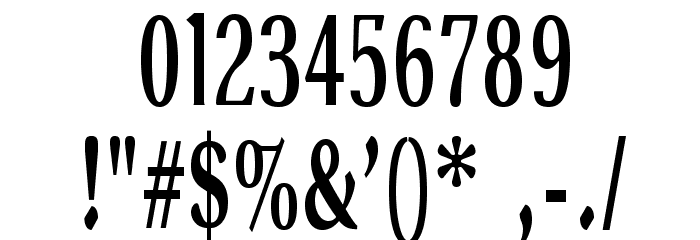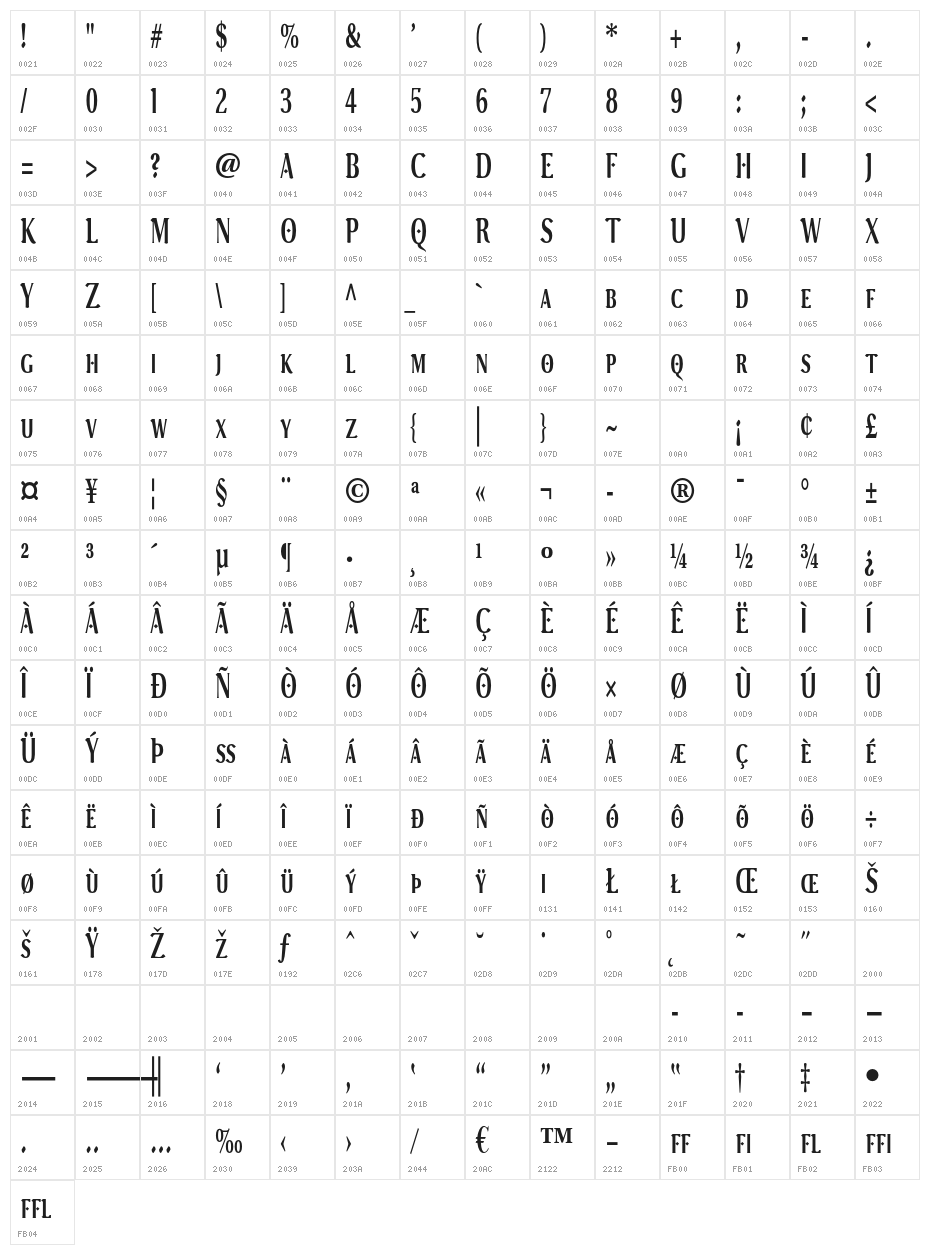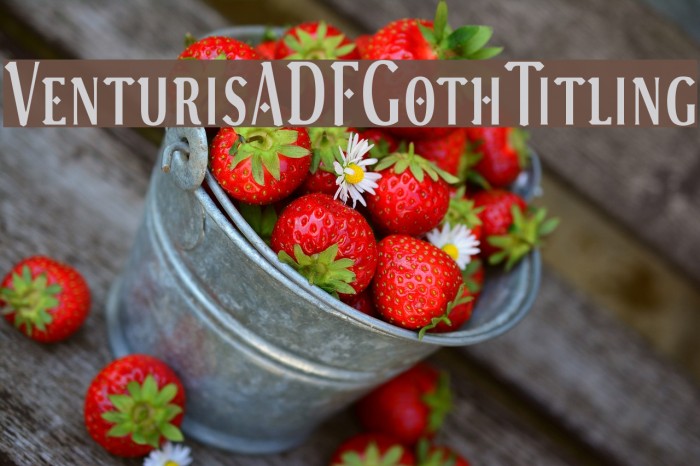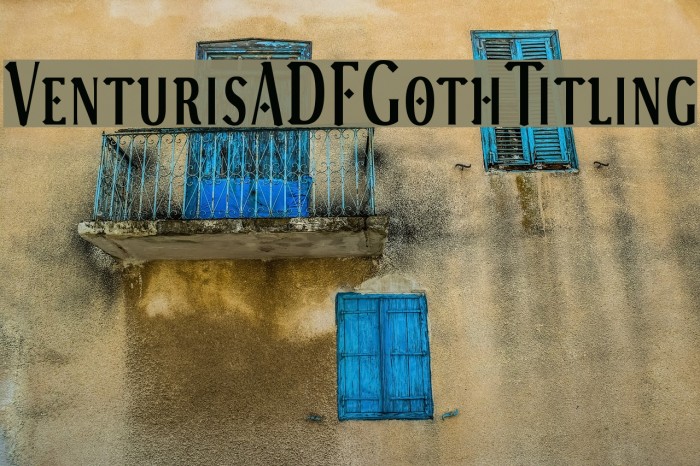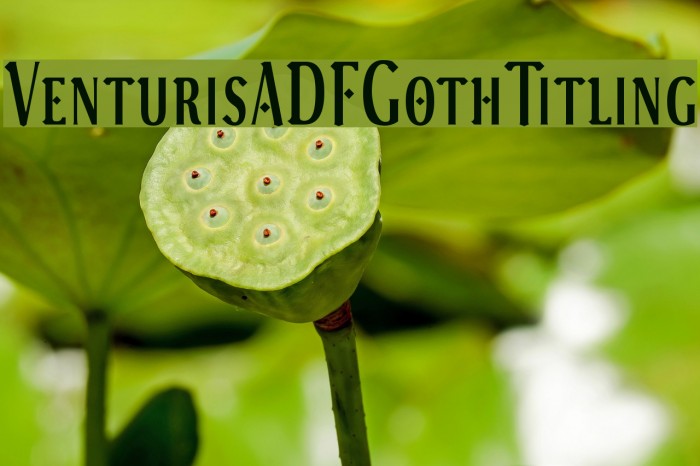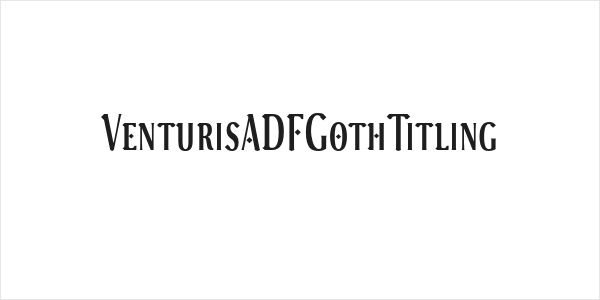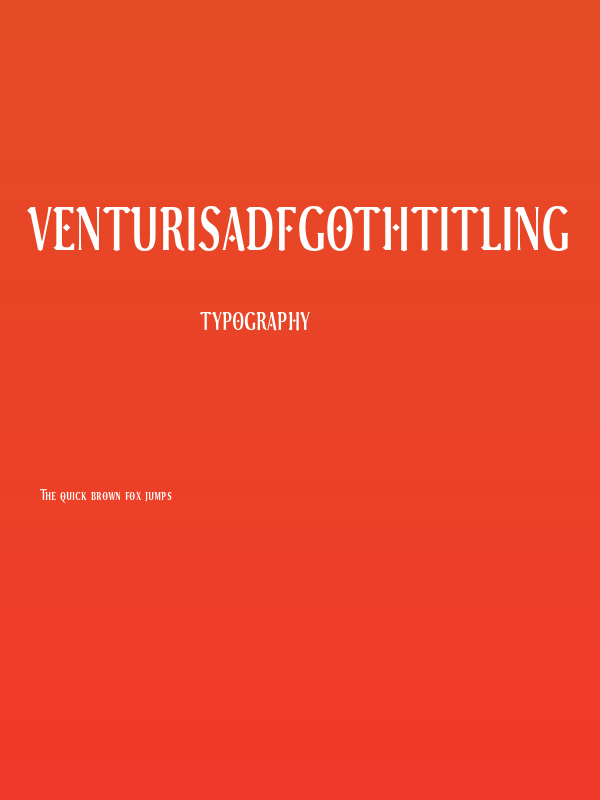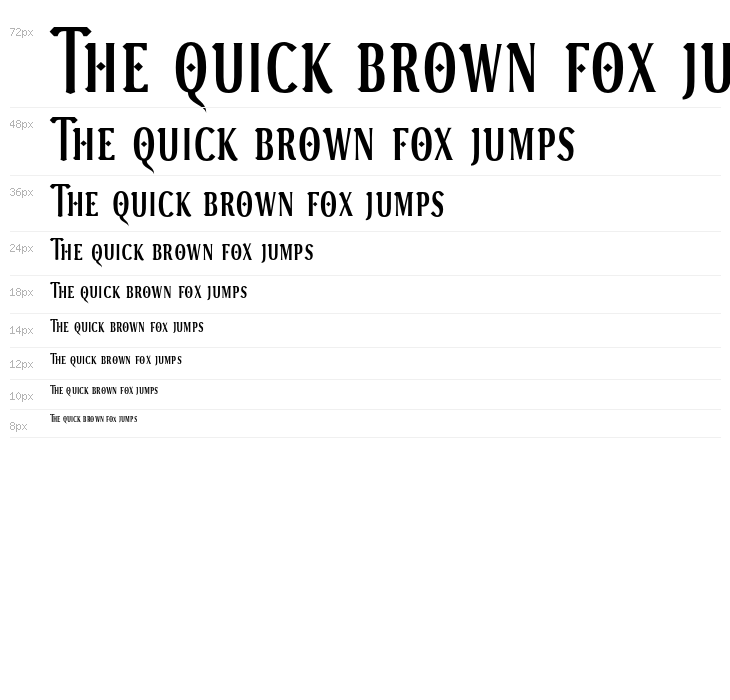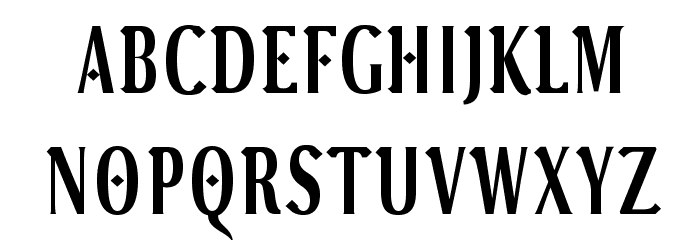
VenturisADFGothTitling Font
VenturisADFGothTitling Description
This font exhibits a striking and bold design, characterized by its sharp, angular serifs and high contrast between thick and thin strokes. The uppercase letters are particularly distinctive, with unique embellishments that add a touch of elegance and sophistication. The lowercase letters maintain a consistent style, ensuring readability while preserving the decorative elements. The numerals are clear and well-defined, complementing the overall aesthetic. Special characters are crafted with the same attention to detail, making this font versatile for various applications. Its design is reminiscent of Gothic influences, yet it maintains a modern appeal, making it suitable for both traditional and contemporary projects.
| Proposed Projects | Ideal for branding, headlines, posters, and any project requiring a dramatic and elegant typeface. |